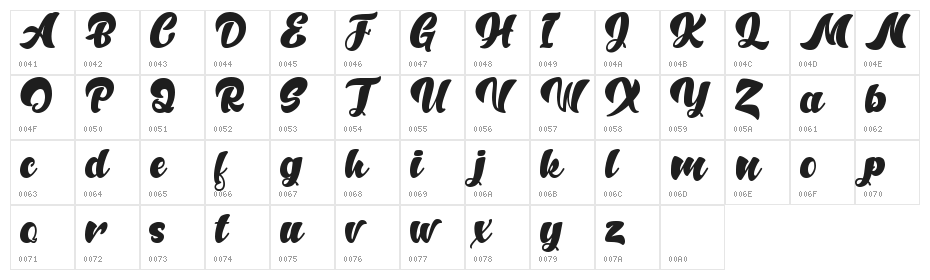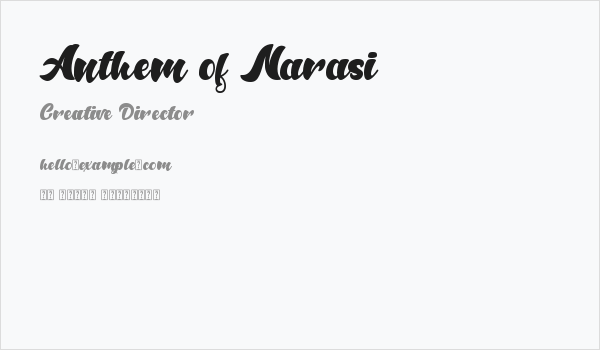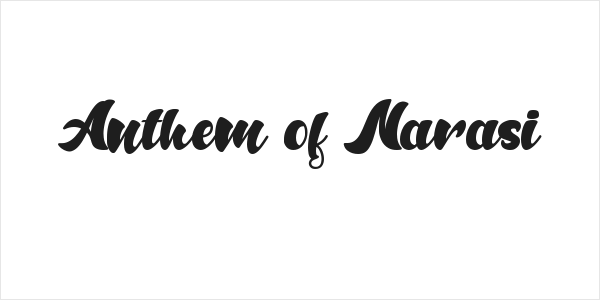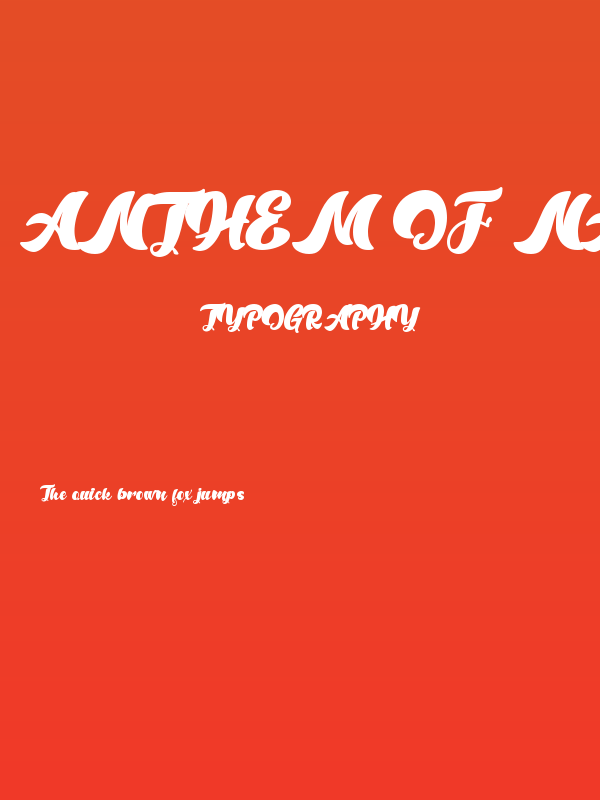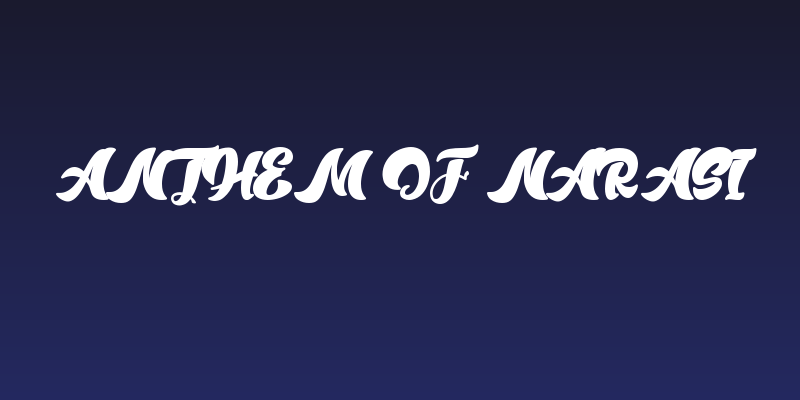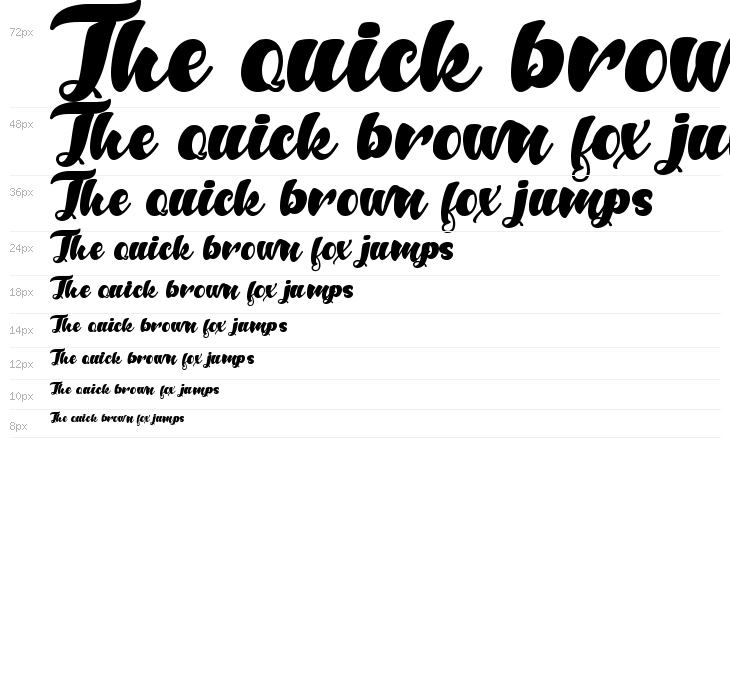
Anthem of Narasi Font
Anthem of Narasi Description
This font features a bold, flowing script style with a strong emphasis on cursive elements. The characters are interconnected, creating a seamless and elegant appearance. The strokes are thick and consistent, providing a robust and impactful look. The uppercase letters are particularly ornate, with exaggerated loops and swirls that add a decorative flair. The lowercase letters maintain the same fluidity and are designed to complement the uppercase set. This font is ideal for creating a sophisticated and artistic impression, suitable for various creative applications.
Use CaseLogos, Invitations, Artistic projects
Proposed ProjectsIdeal for wedding invitations, branding, logos, and artistic projects that require a touch of elegance and sophistication.